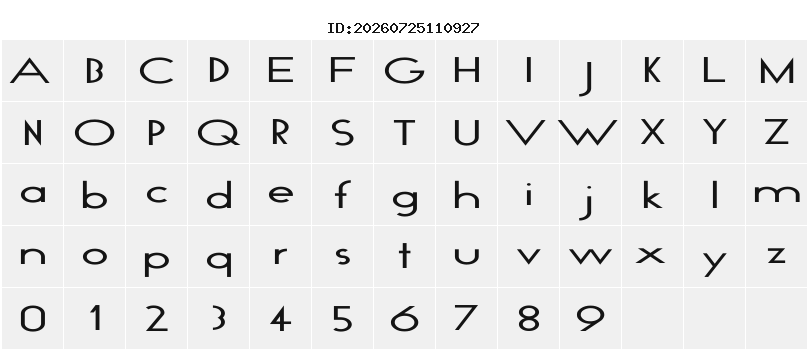
GeoPlain Ex Preview
About GeoPlain Ex.ttf
GeoPlain Ex.ttf is a modern, elegant sans-serif font designed for ultimate readability and visual harmony. Perfect for branding, headlines, web design, and print materials.